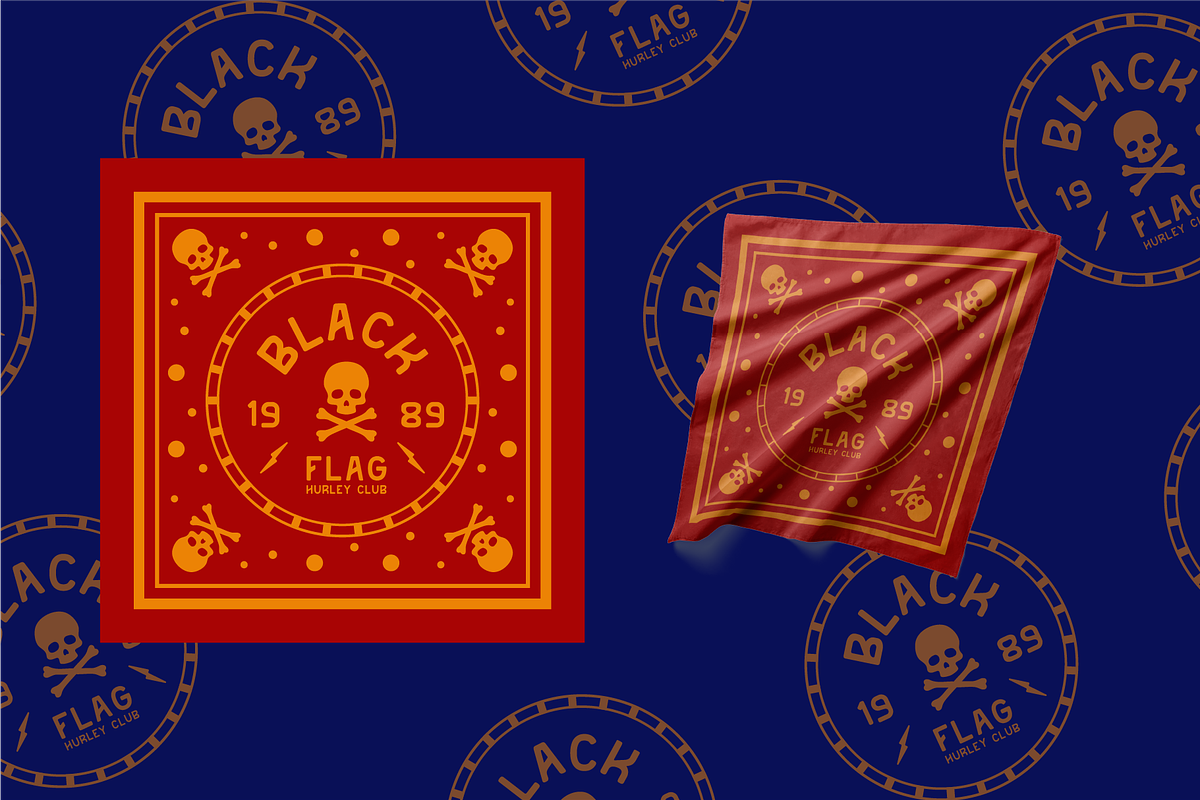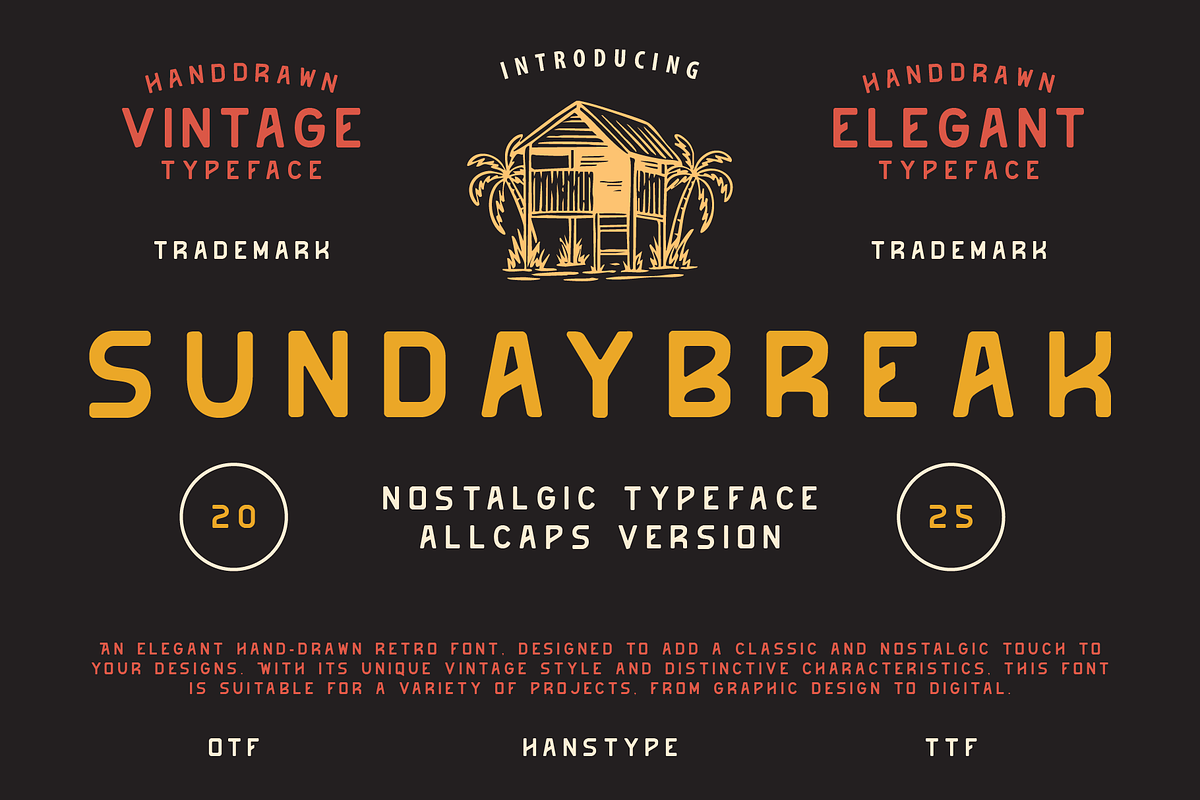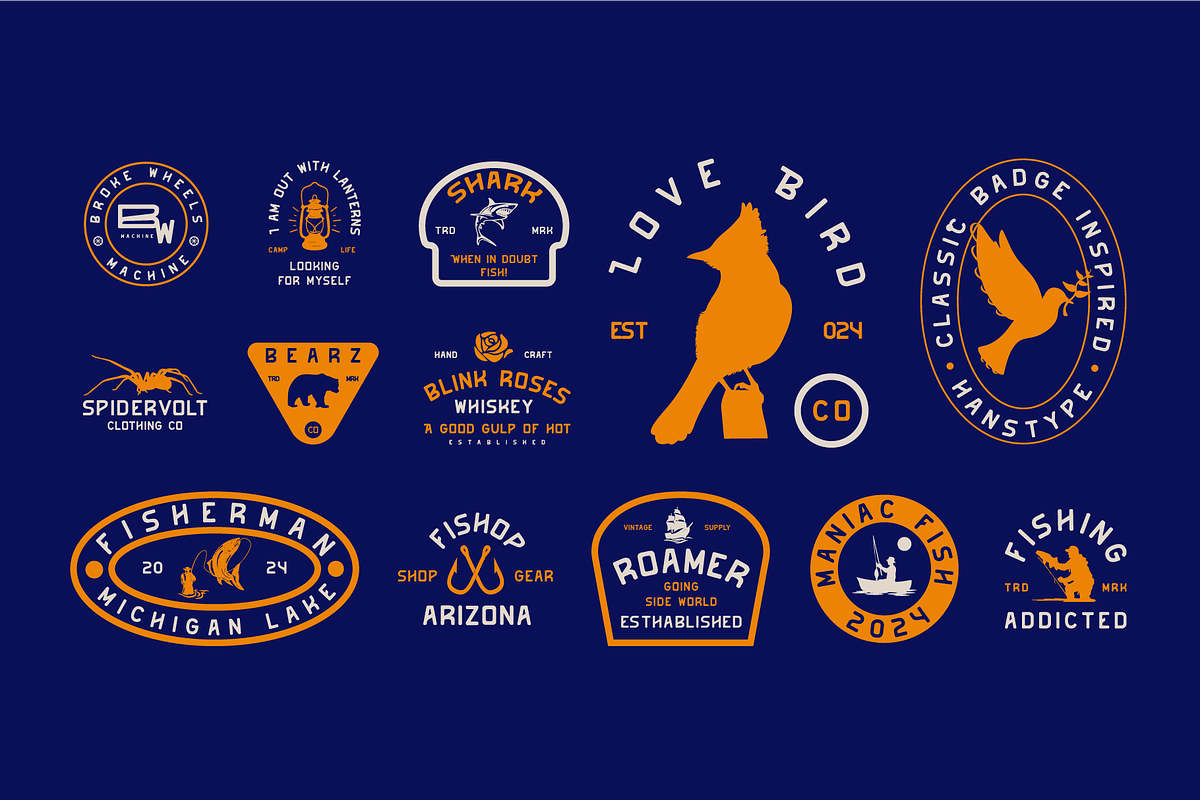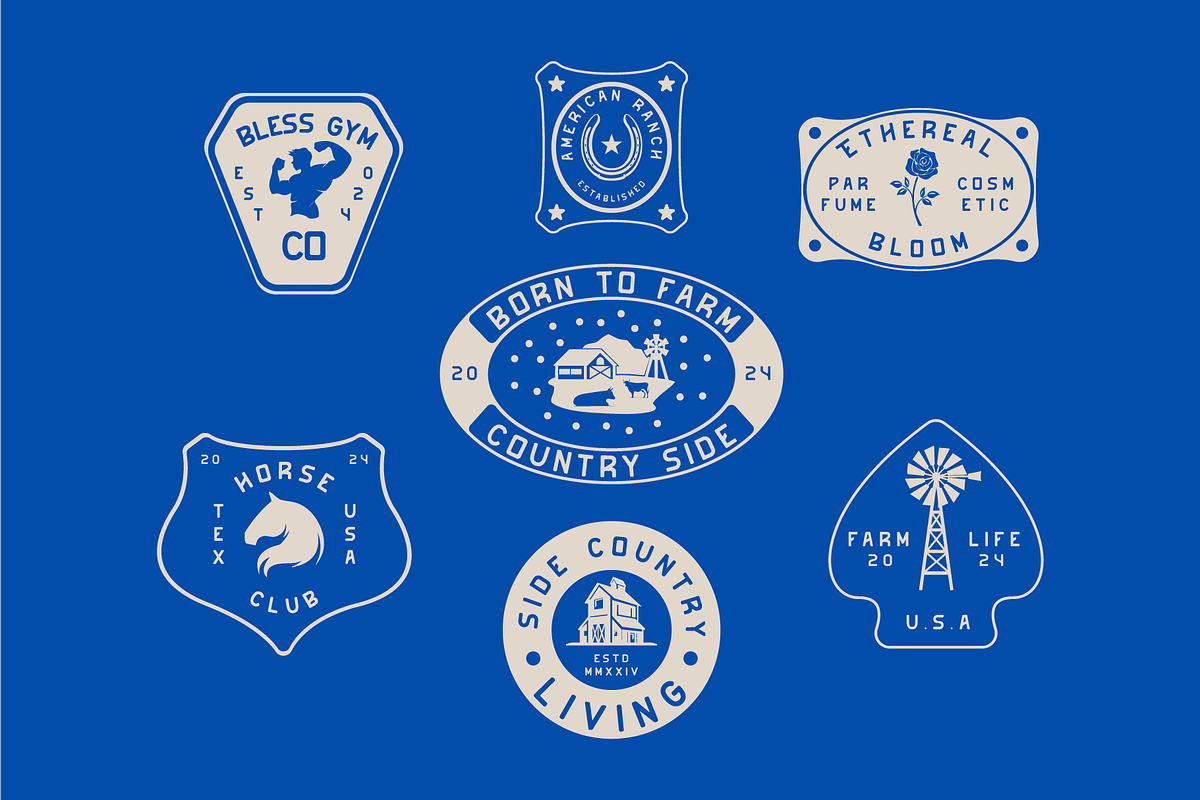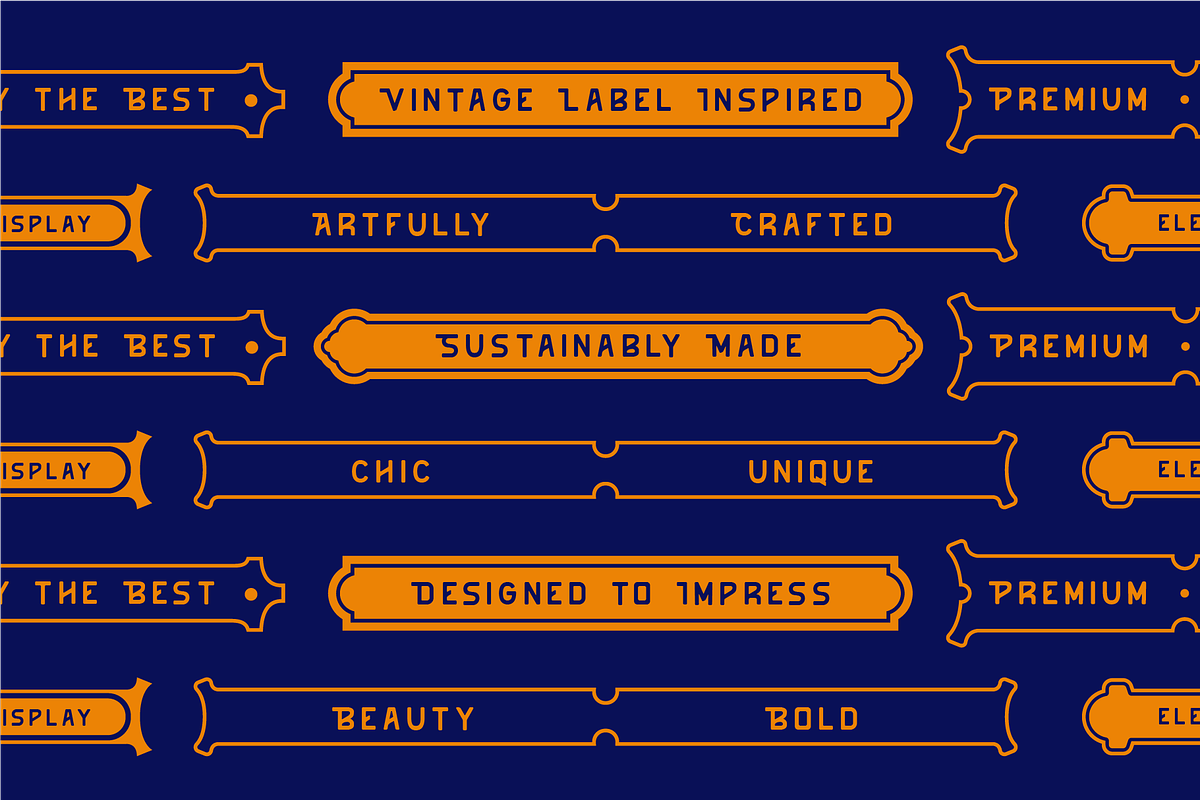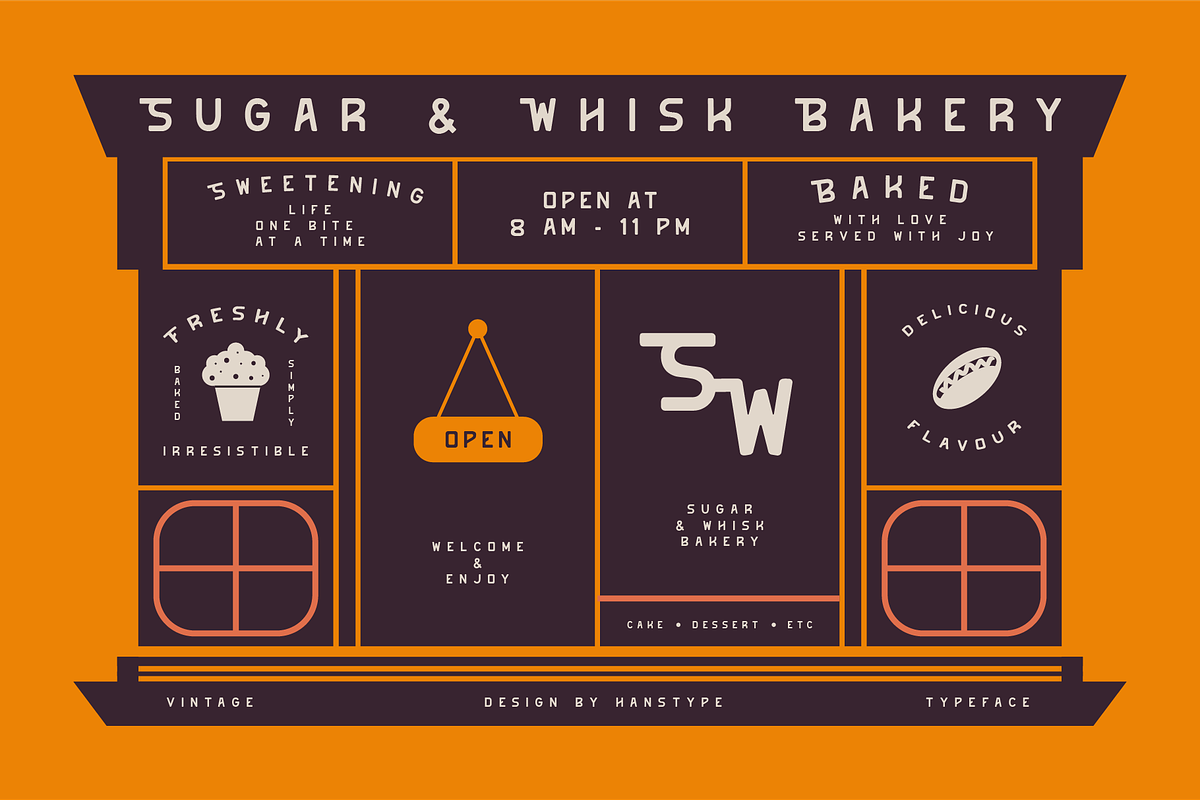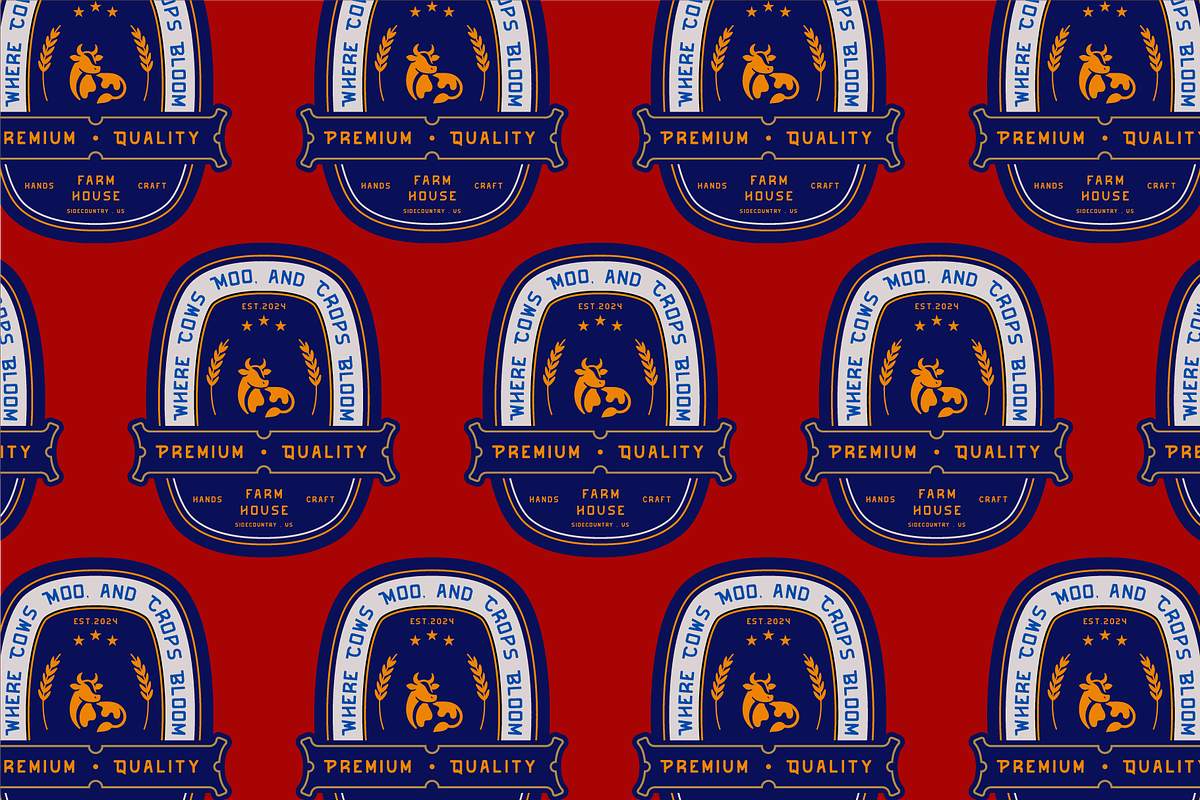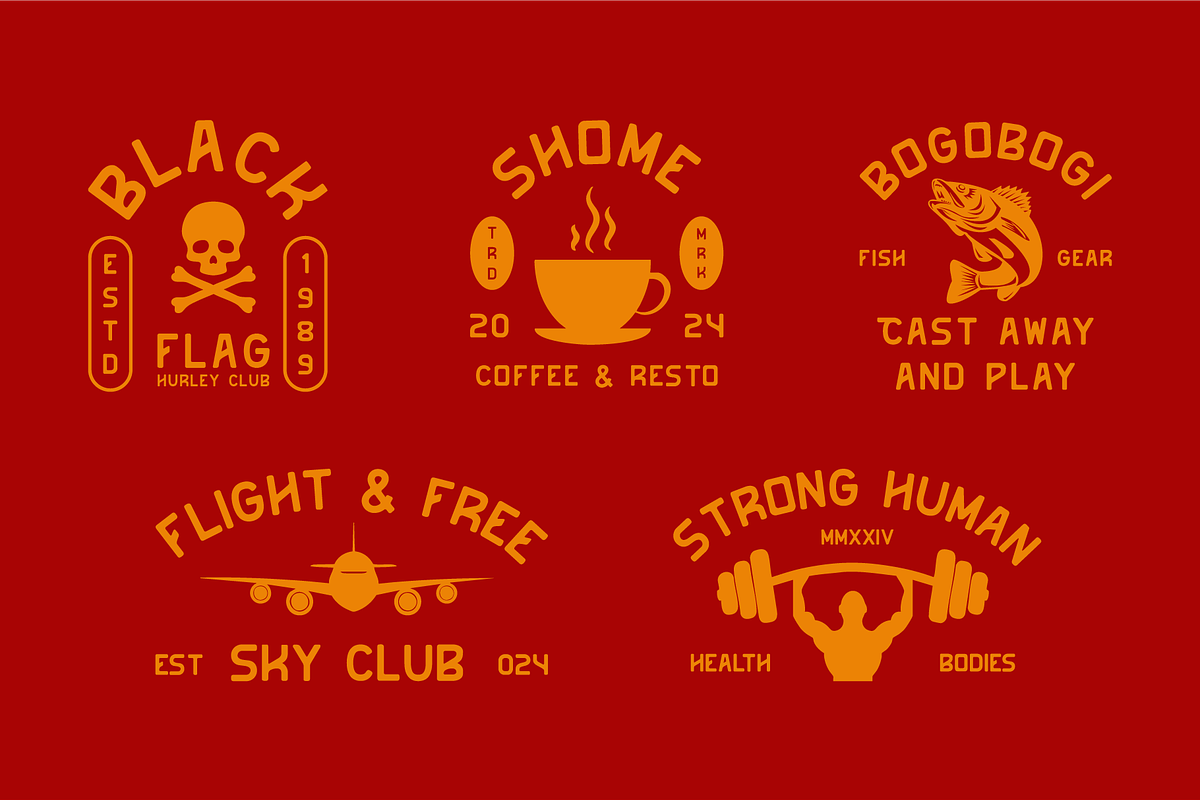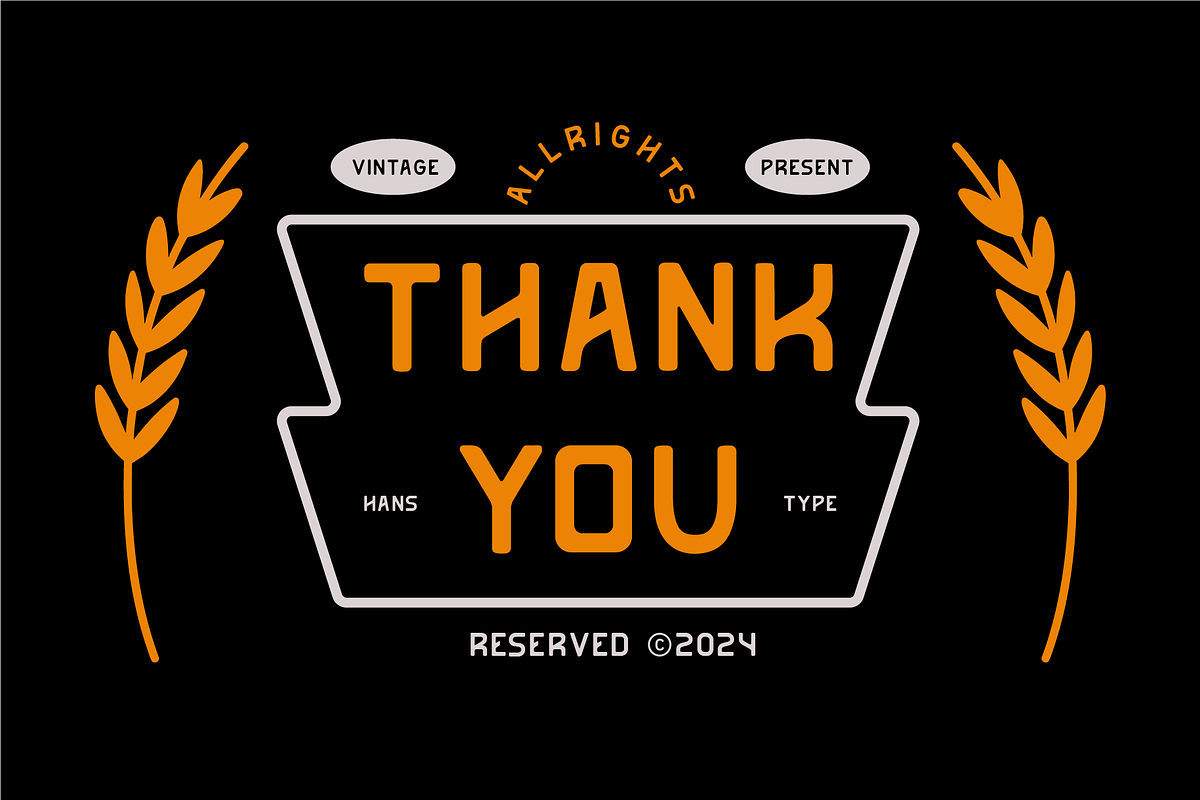
Sundaybreak - Retro Font
An elegant hand-drawn retro font, designed to add a classic and nostalgic touch to your designs. With its unique vintage style and distinctive characteristics, this font is suitable for a variety of projects, from graphic design to digital.